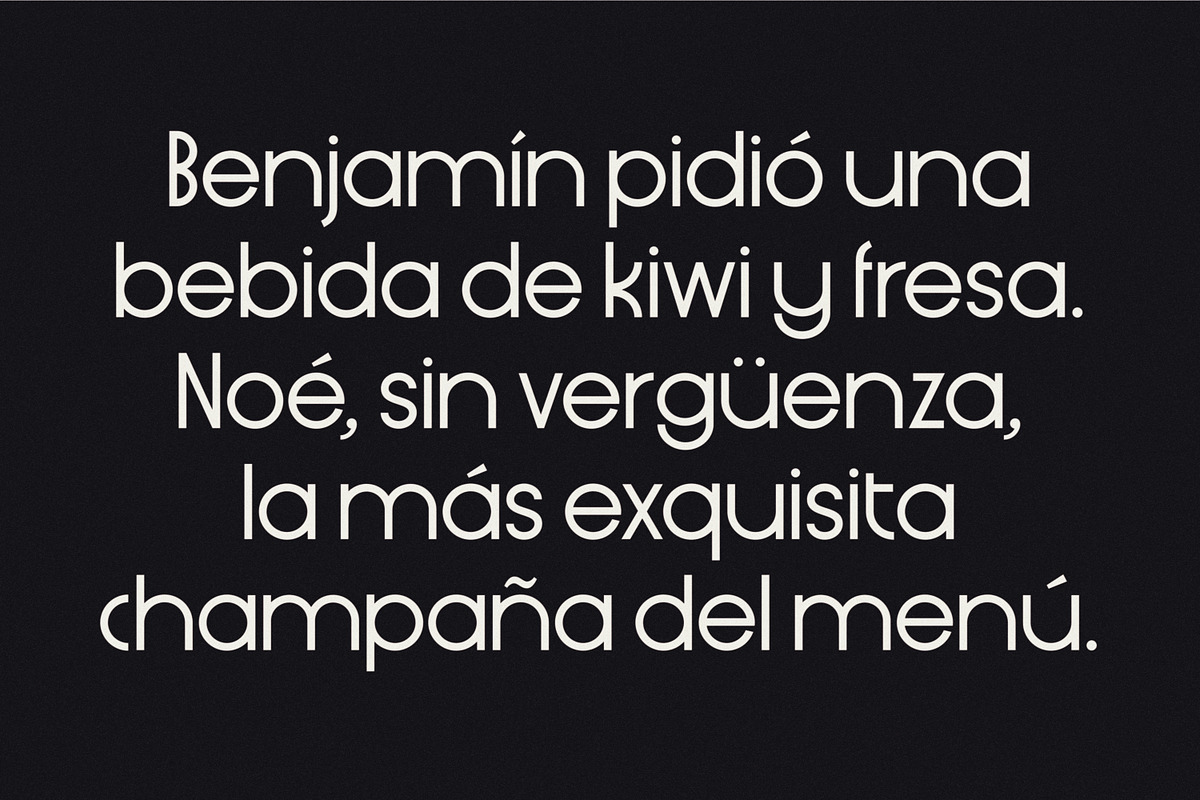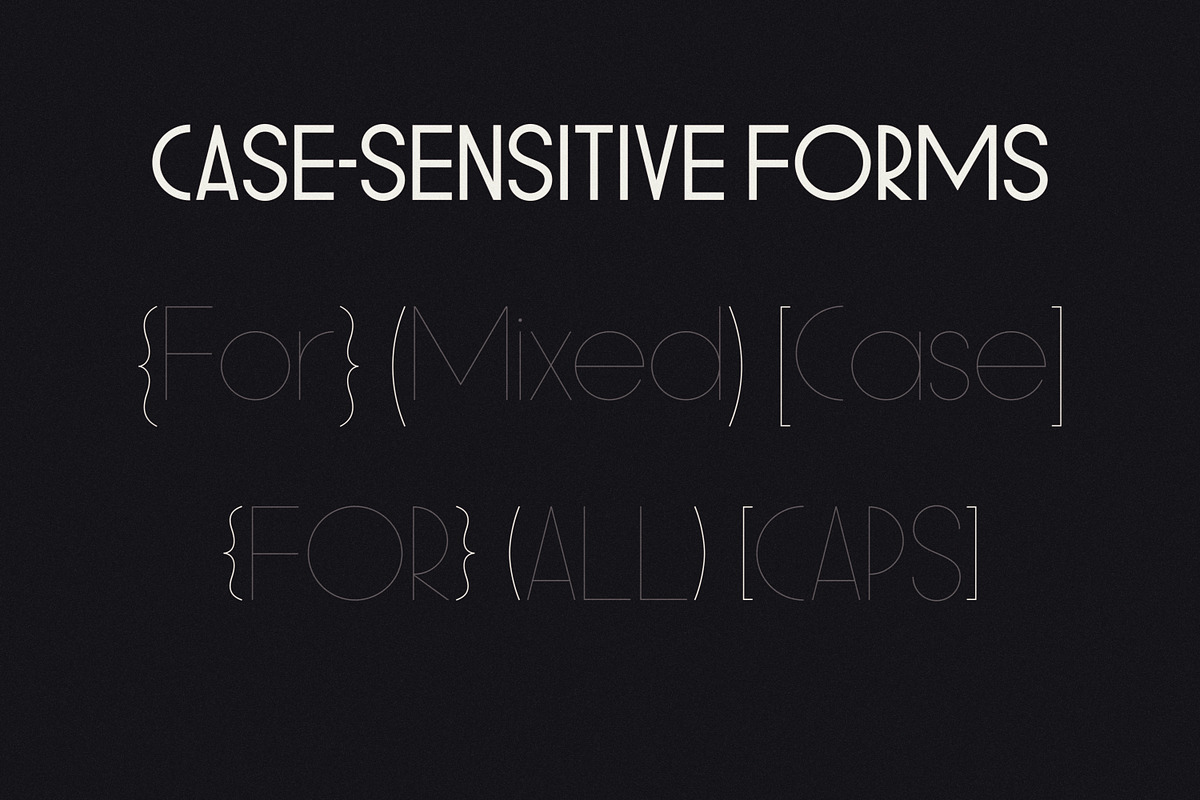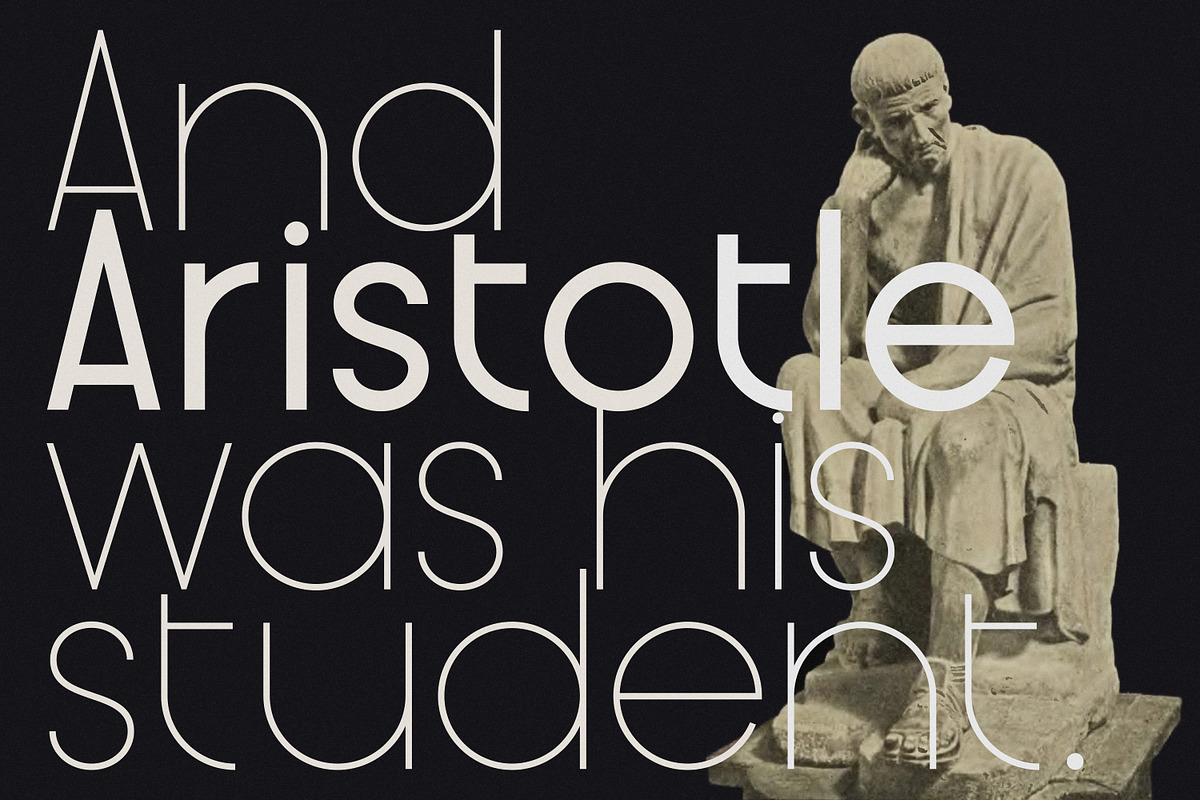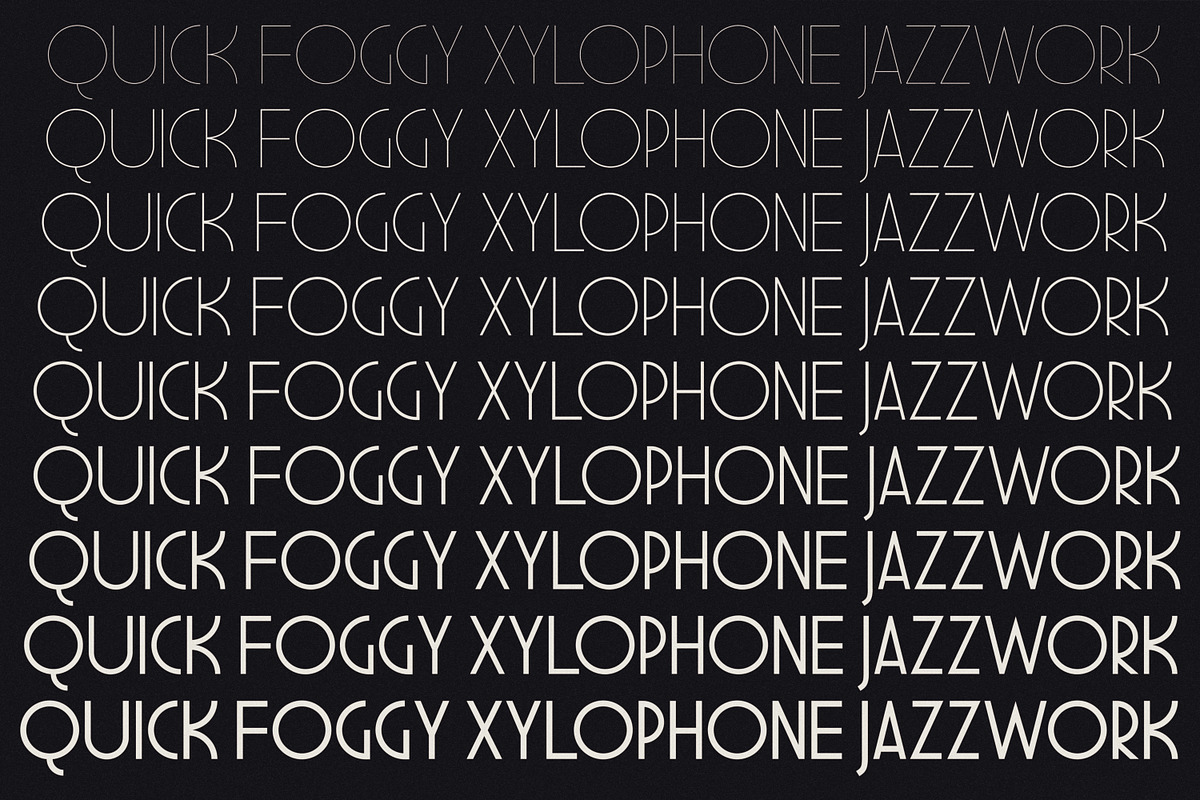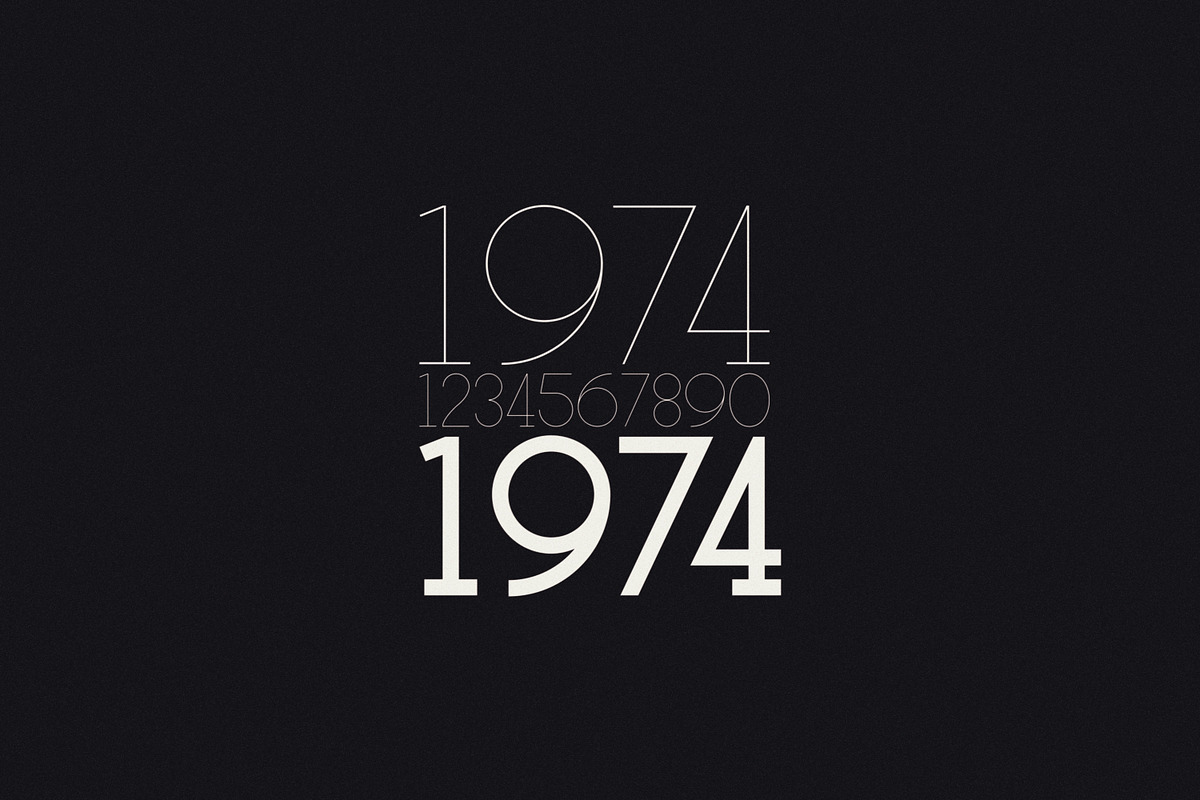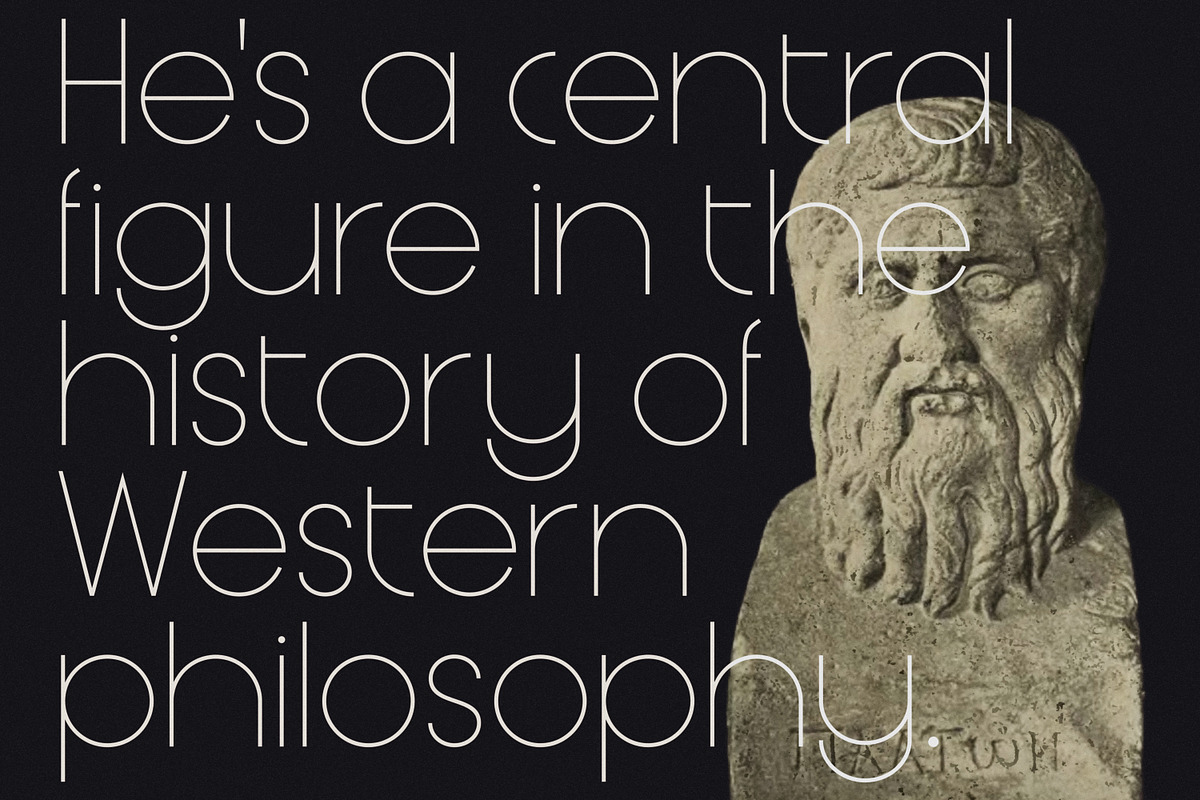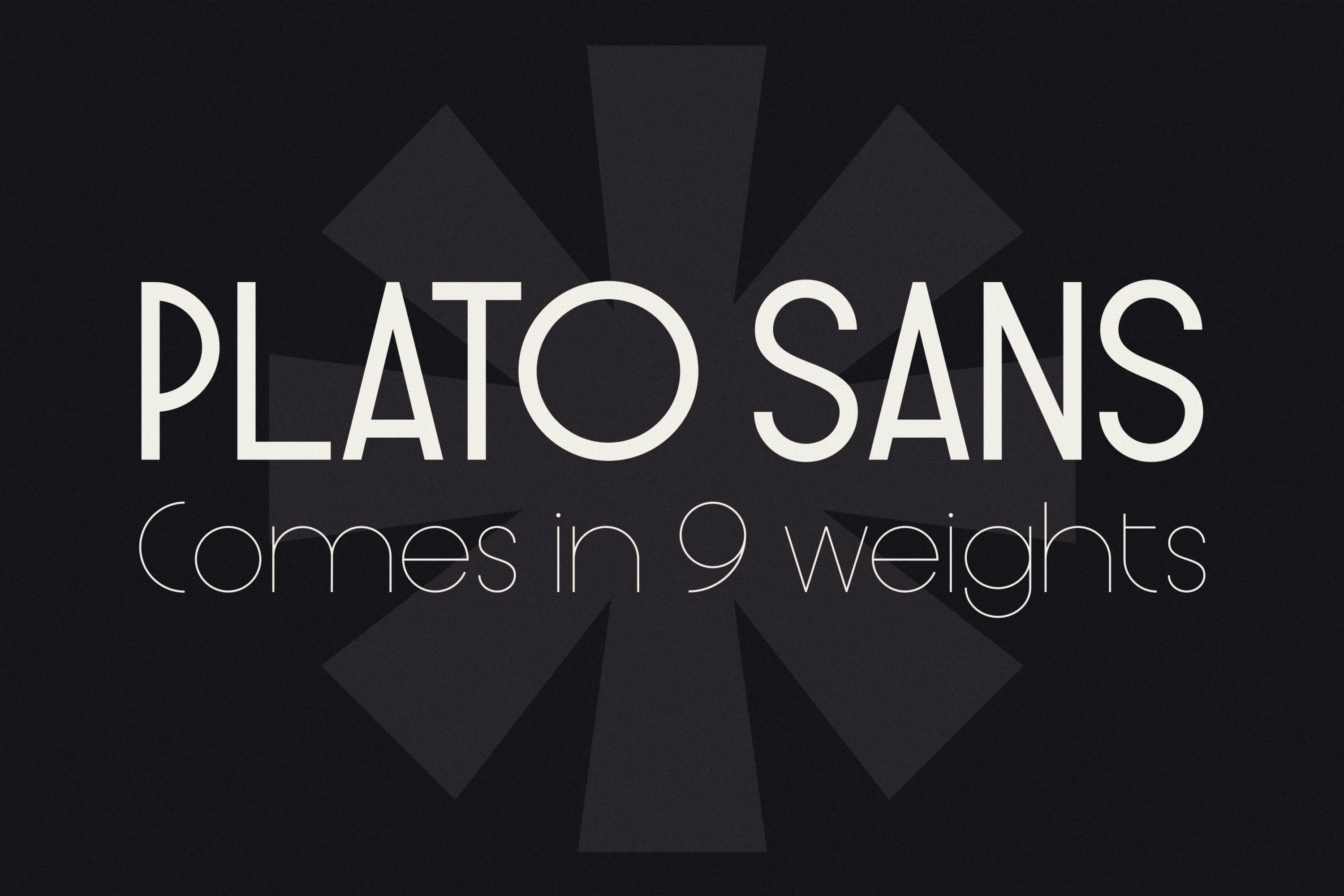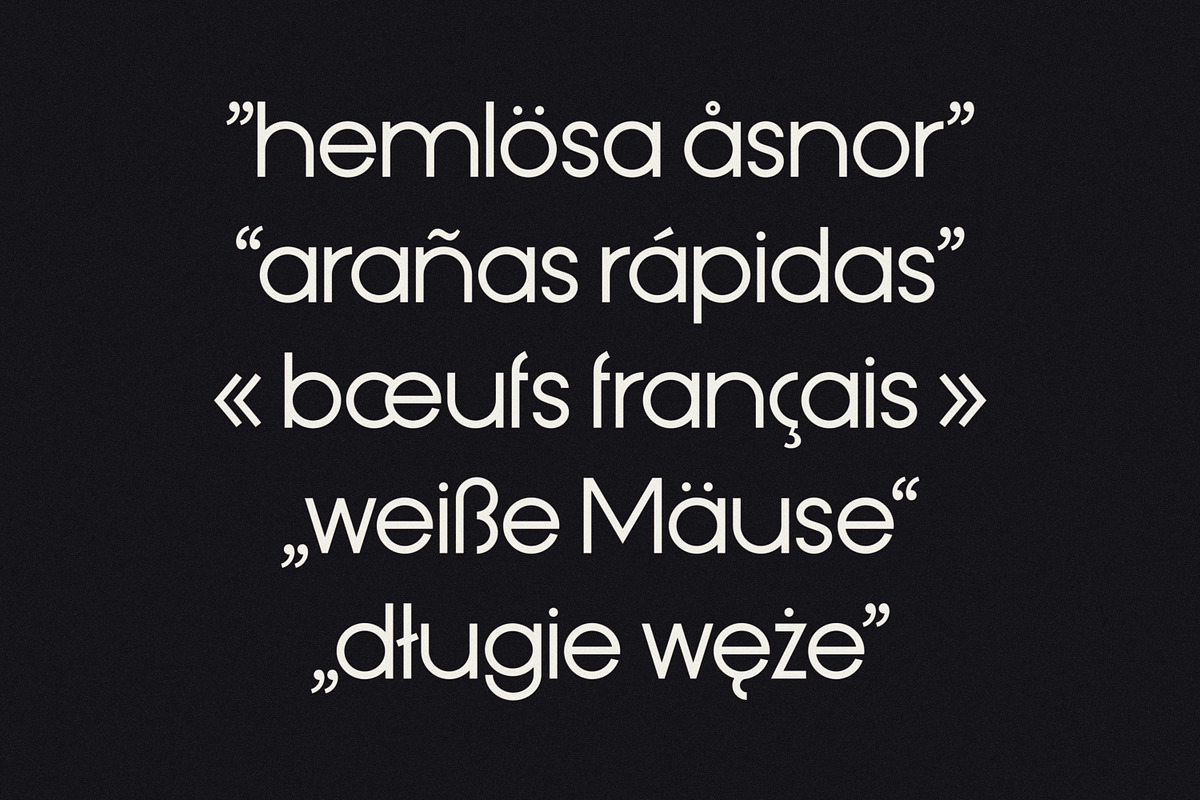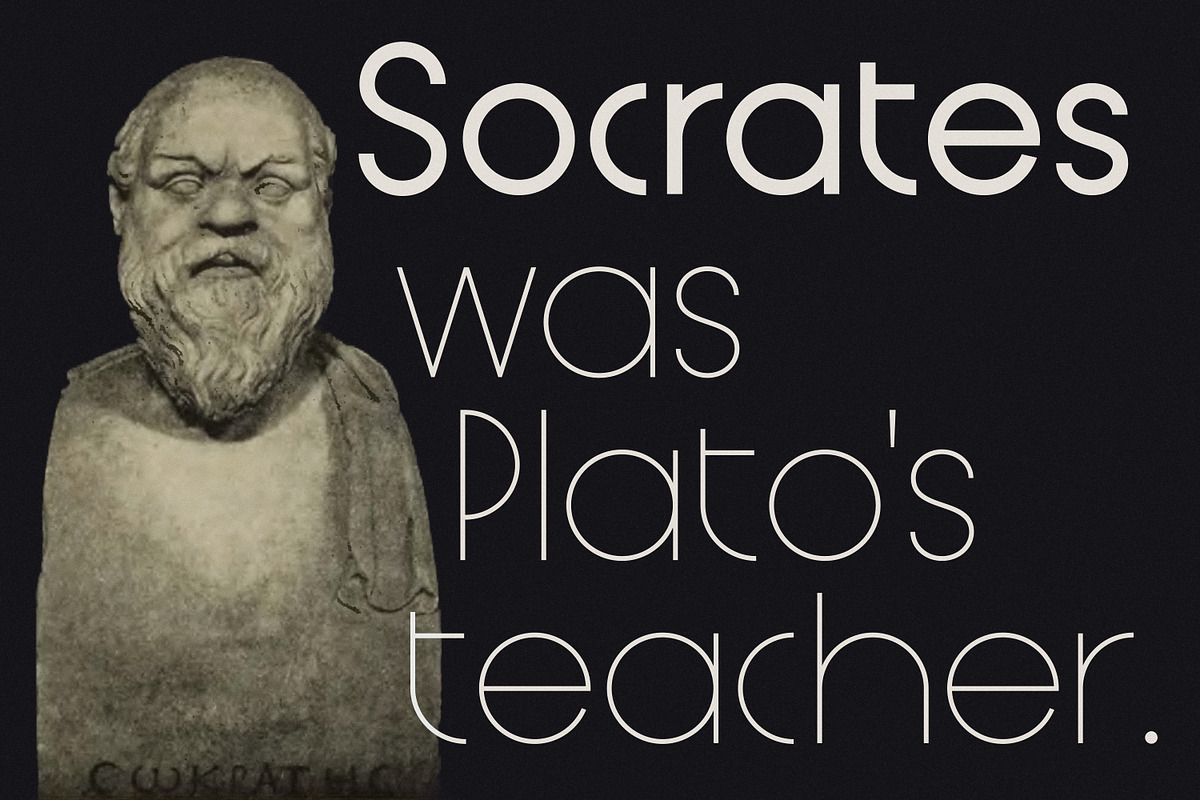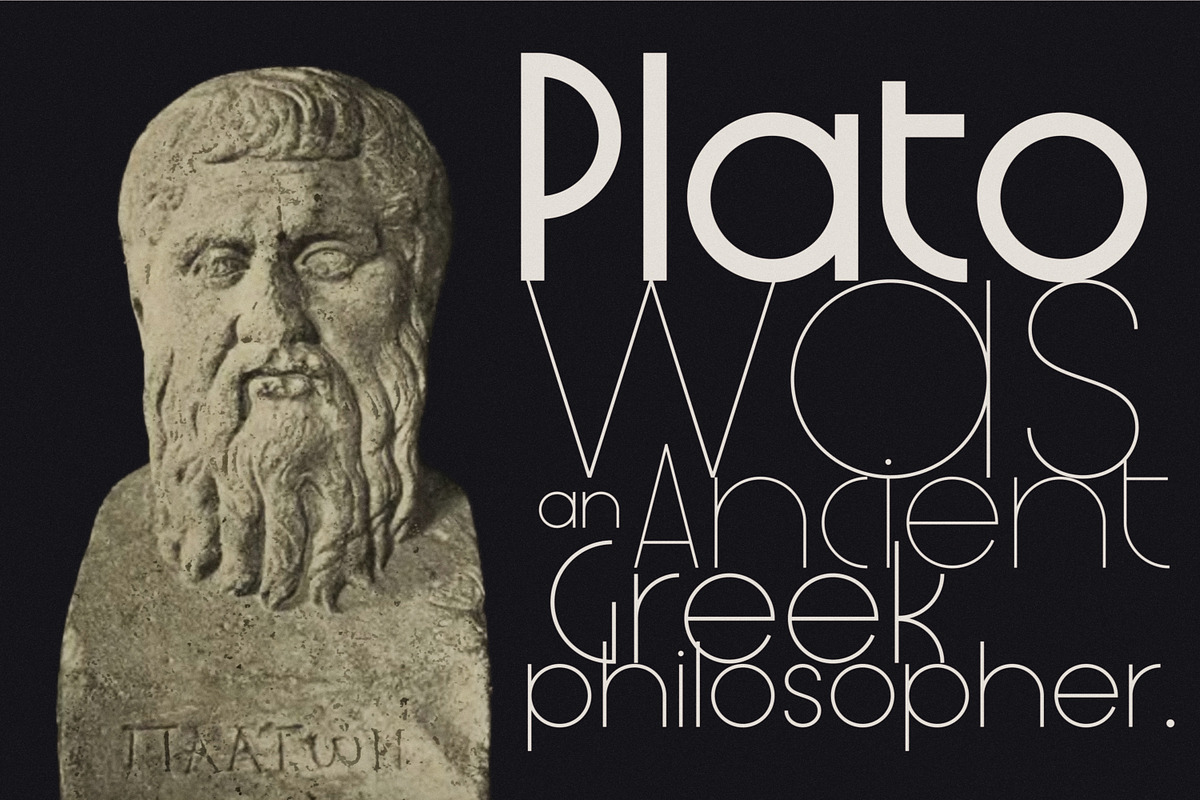
Plato Sans - Geometric Display Font
Plato Sans is an elegant and minimalistic typeface designed mainly for display use. It's perfect for magazine and book covers, posters and branding. It can also be used on short texts.